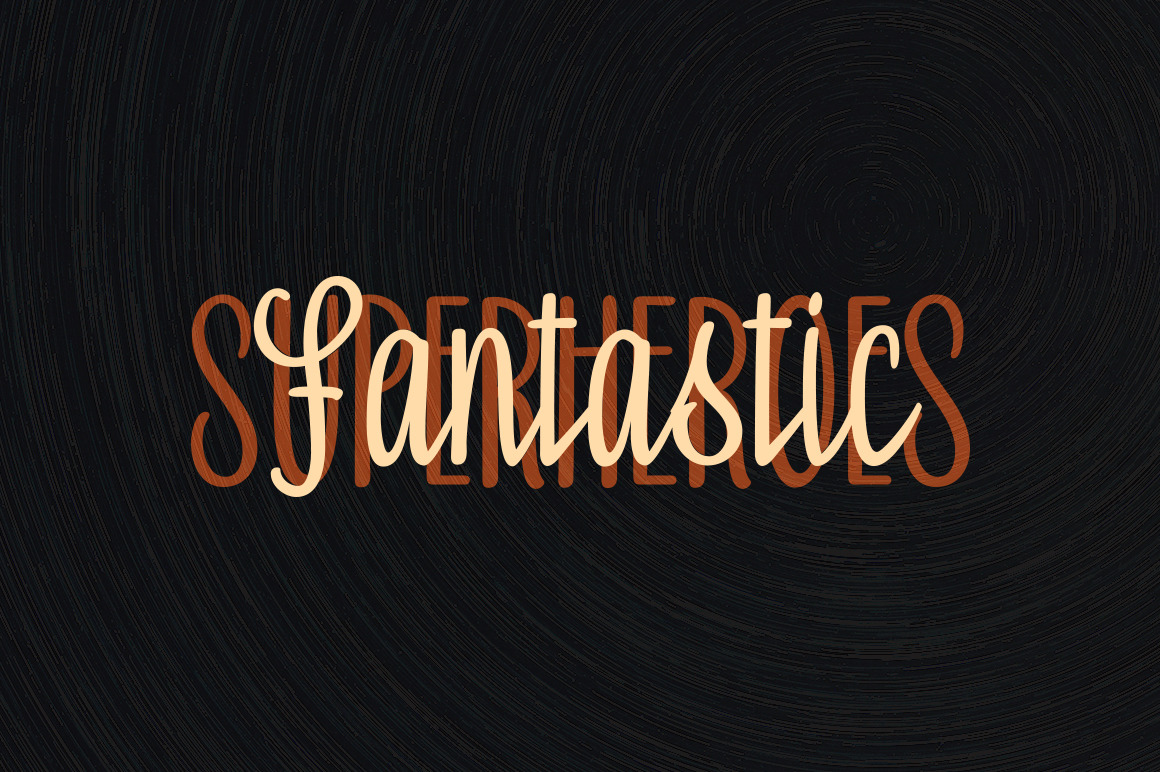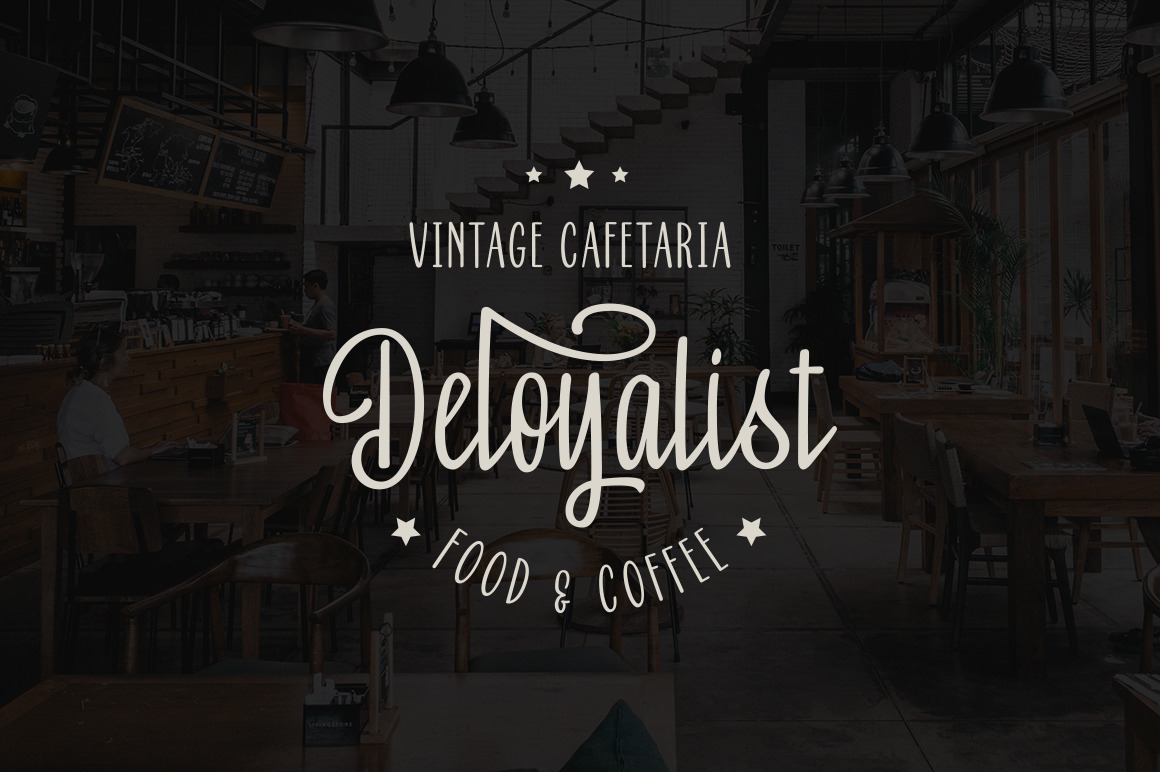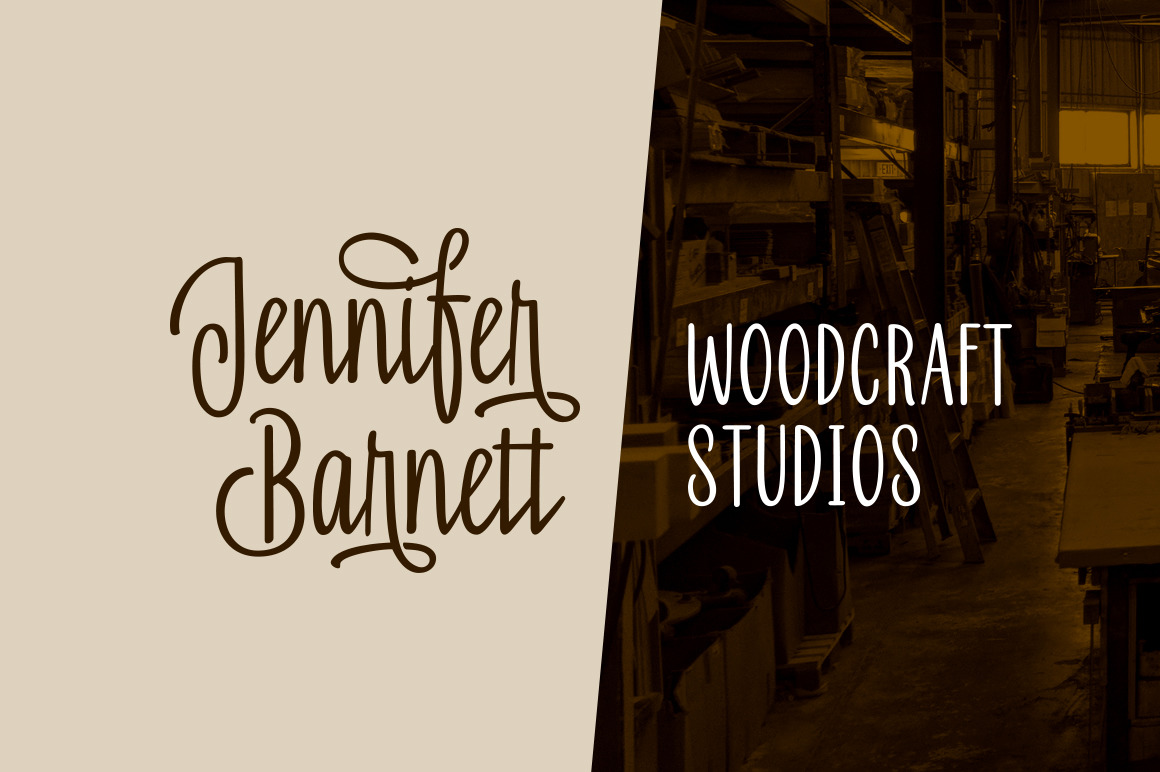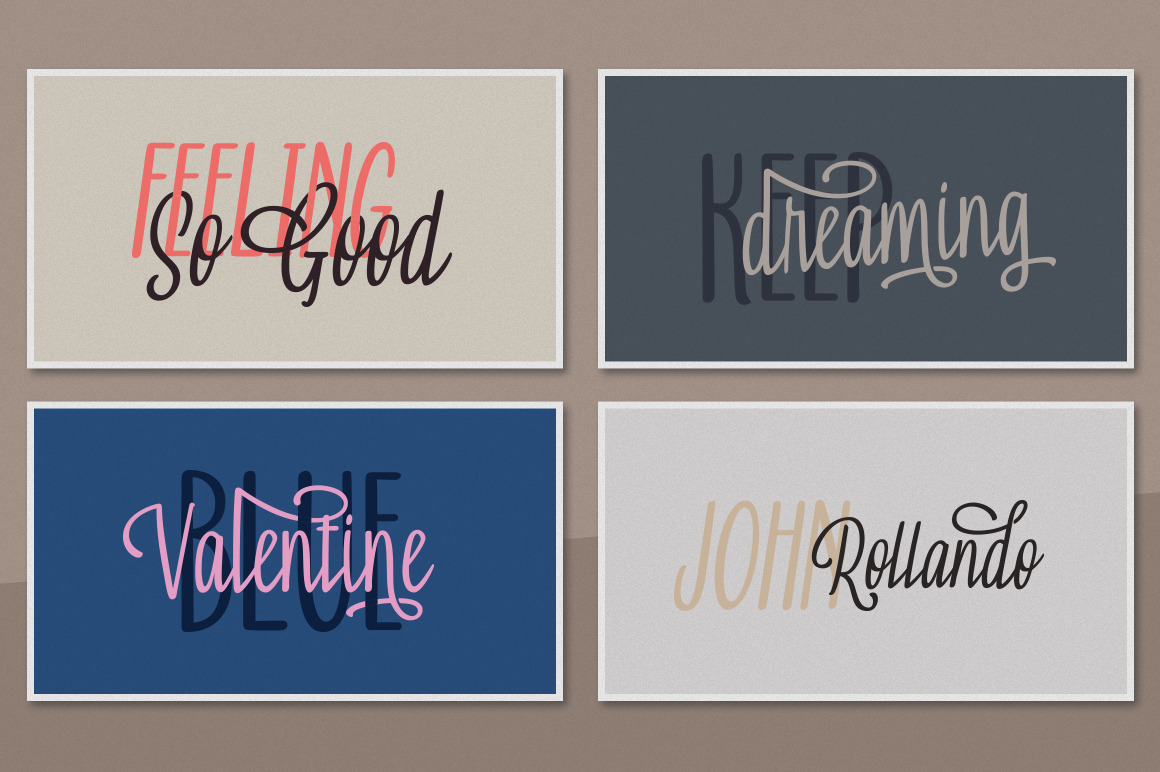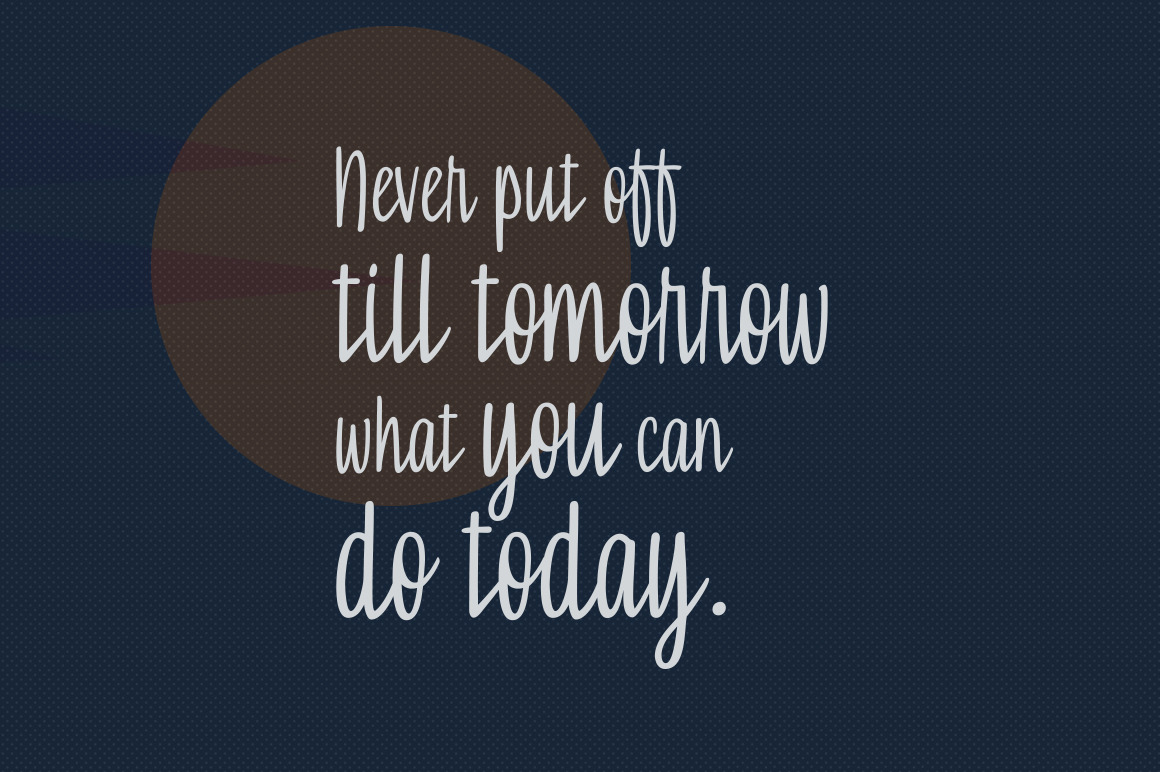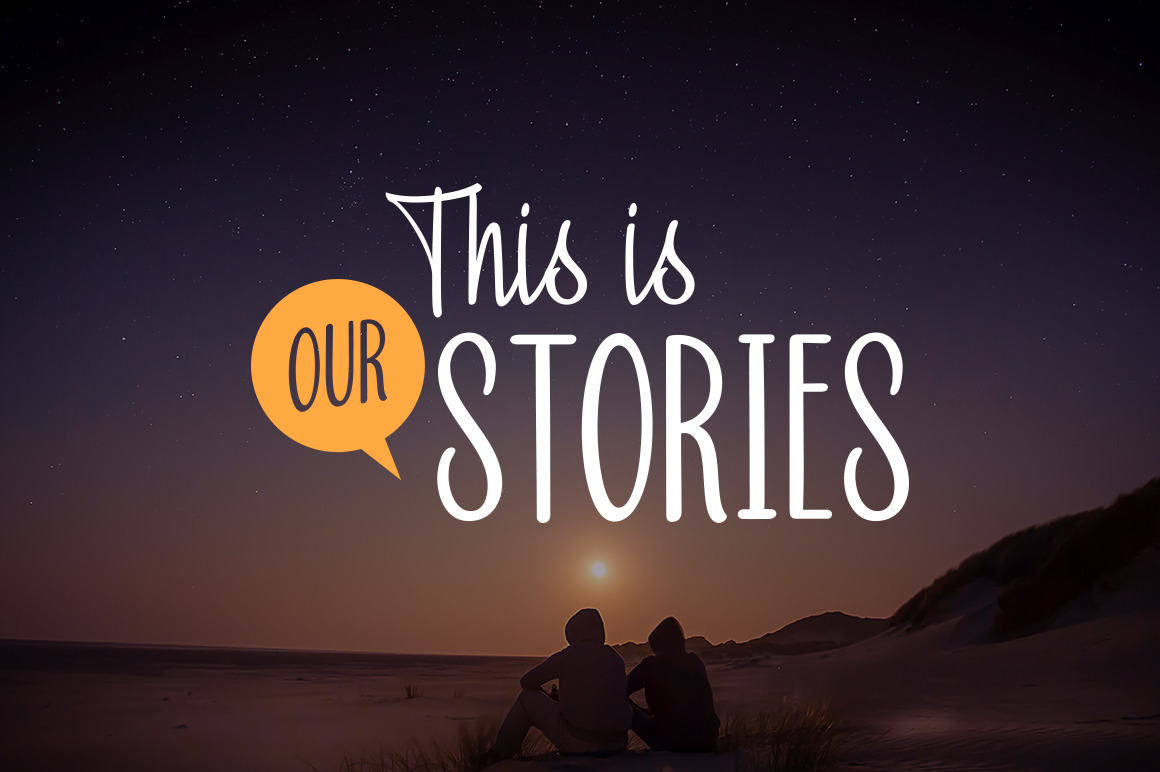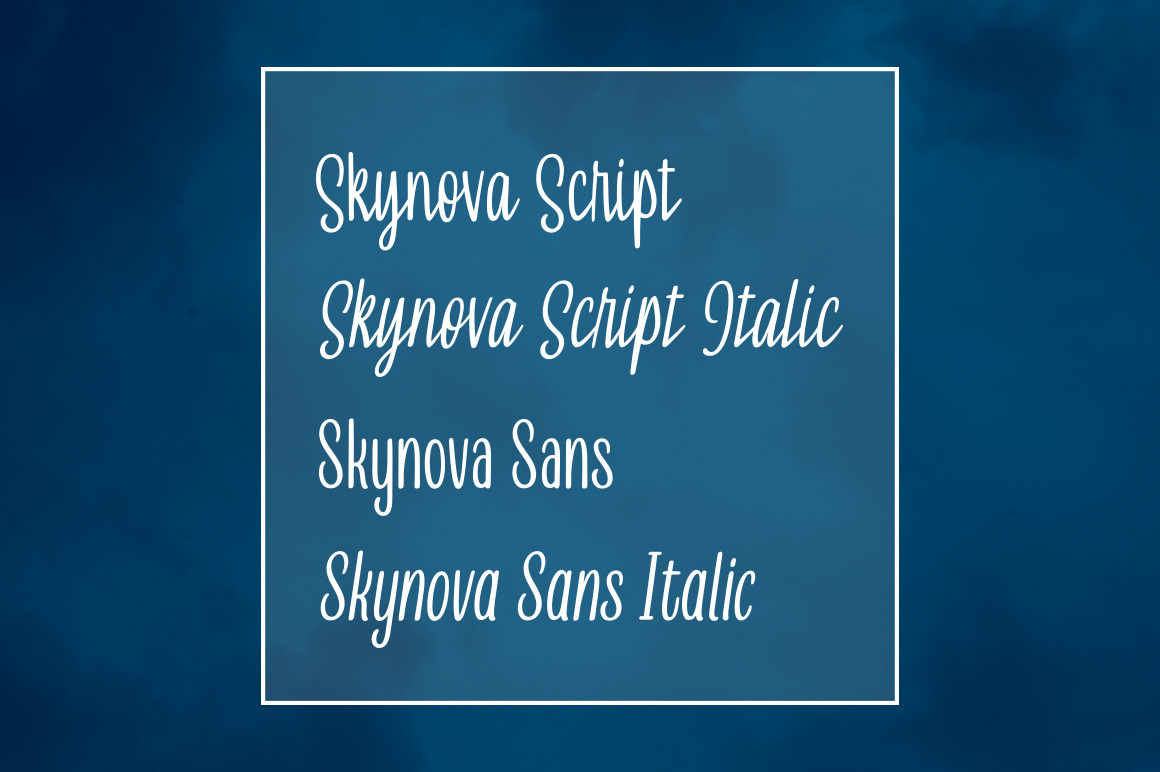
Skynova Font
Skynova is a unique handwriting script from the sky. It was carefully crafted by combining a thin yet elegant calligraphy style. This font is paired with Skynova Sans, a handwritten sans font for you to easily mix and match typography in various layouts.
* Skynova Script
* Skynova Script Italic
* Skynova Sans
* Skynova Sans Italic
* Unique script and sans font
* Tons of opentype features: swashes, ligatures, stylistic sets